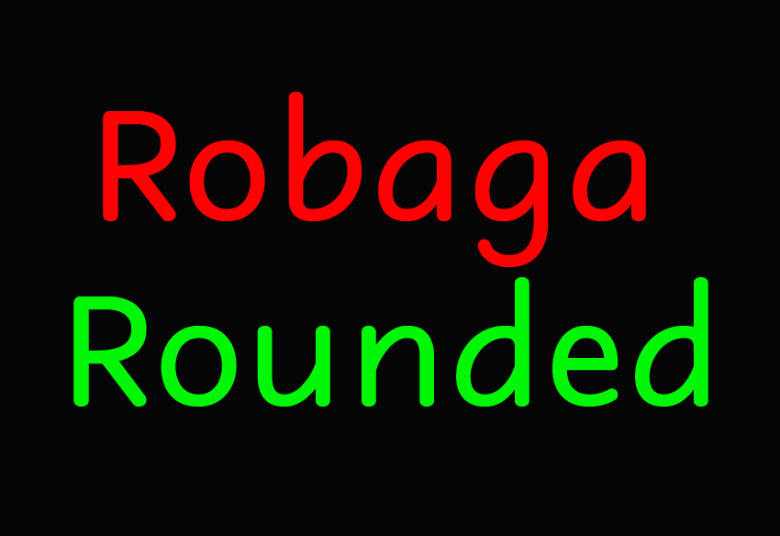
Robaga Rounded Font Family
Robaga Rounded Font
Robaga Rounded is a sans serif family with a smooth, rounded look. It consists of ten family: Thin & Italic, Light & Italic, Regular & Italic, Bold & Italic, and Black & Italic. This complete family completes your need of font for heading, sub-heading, and content of printings and digital designs.
Robaga Rounded Font Family